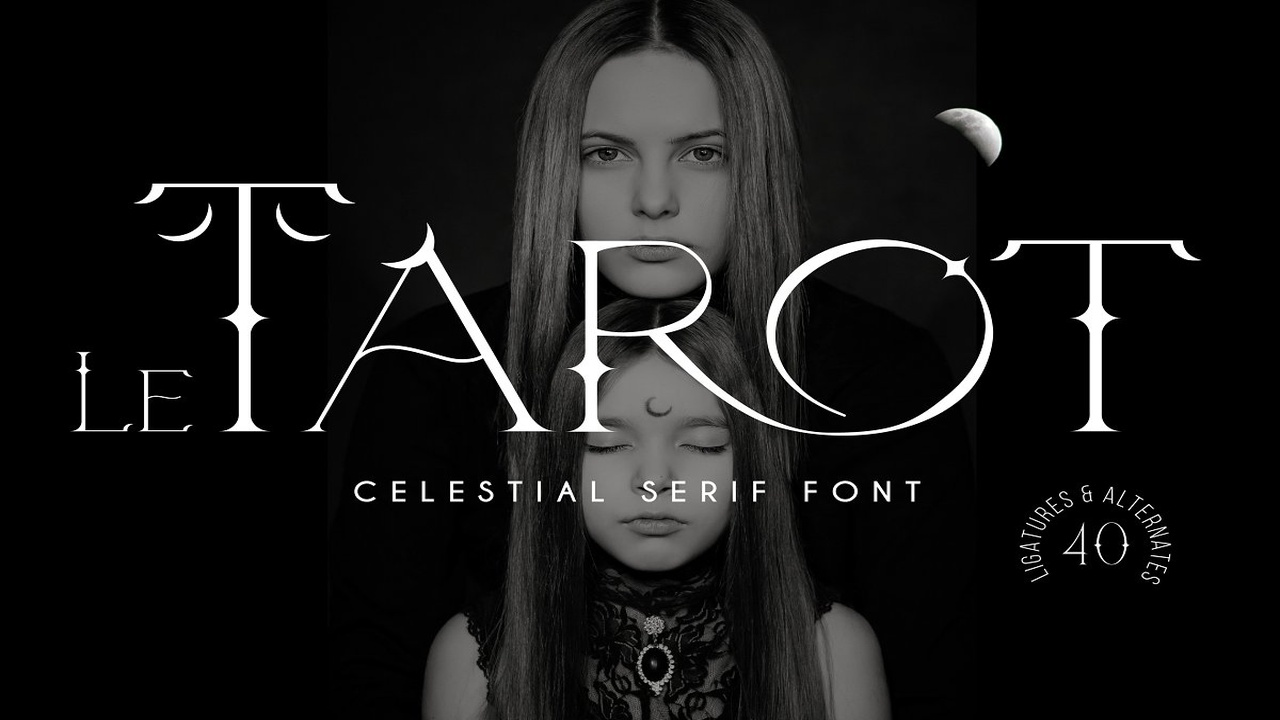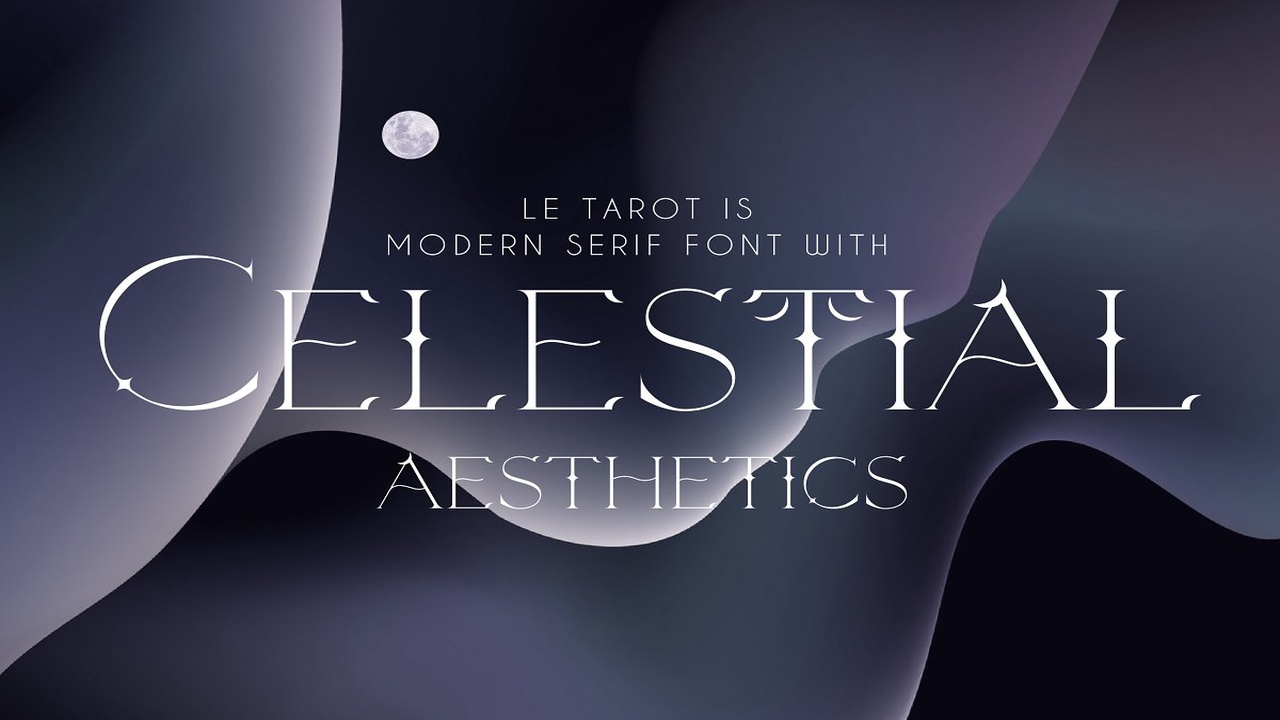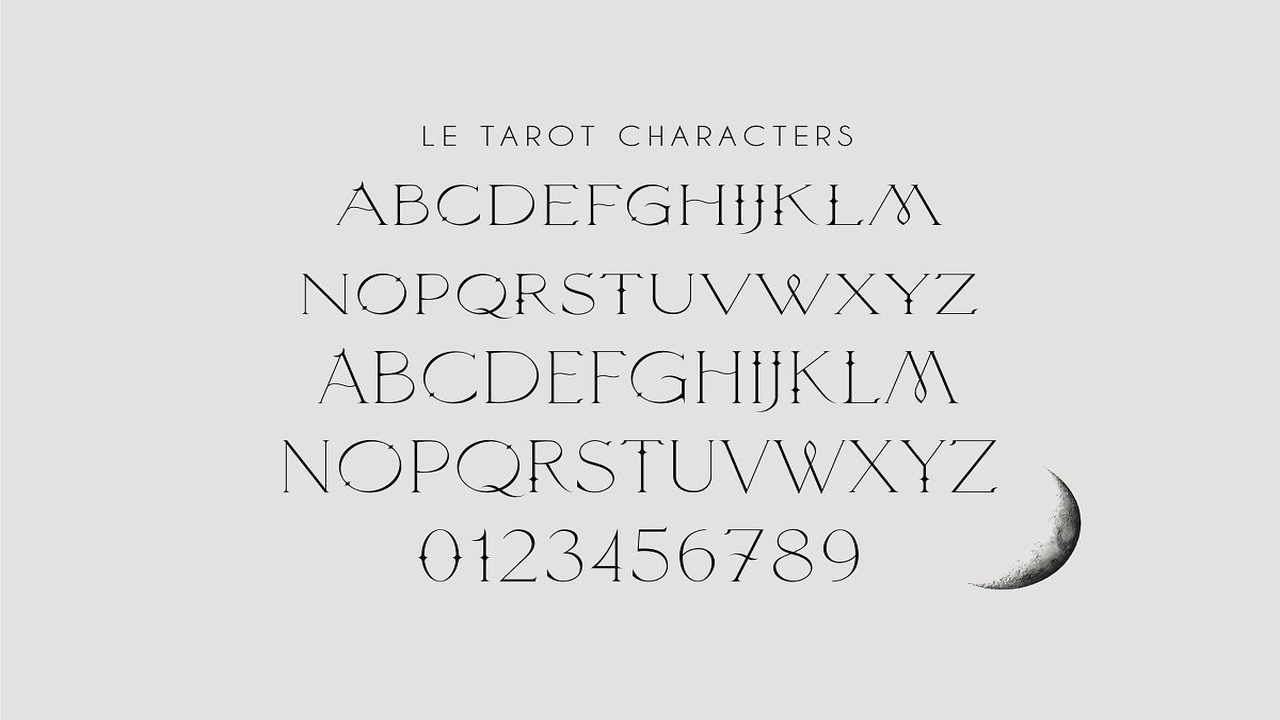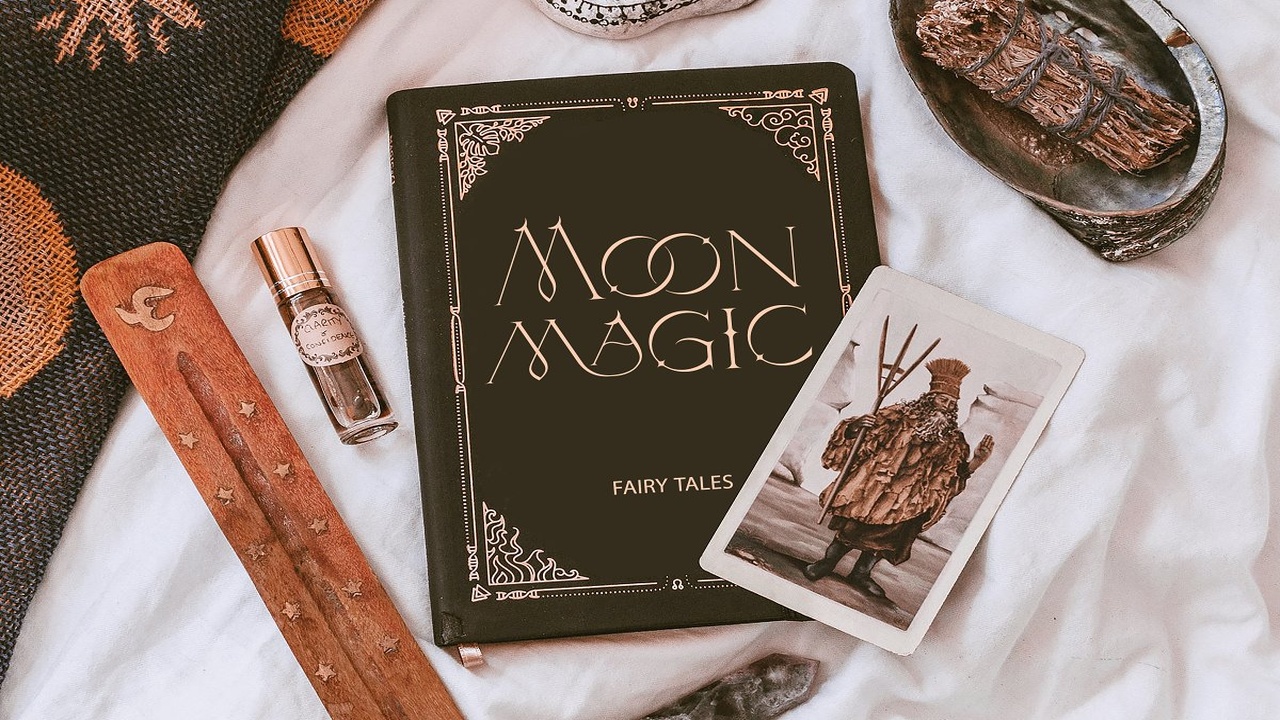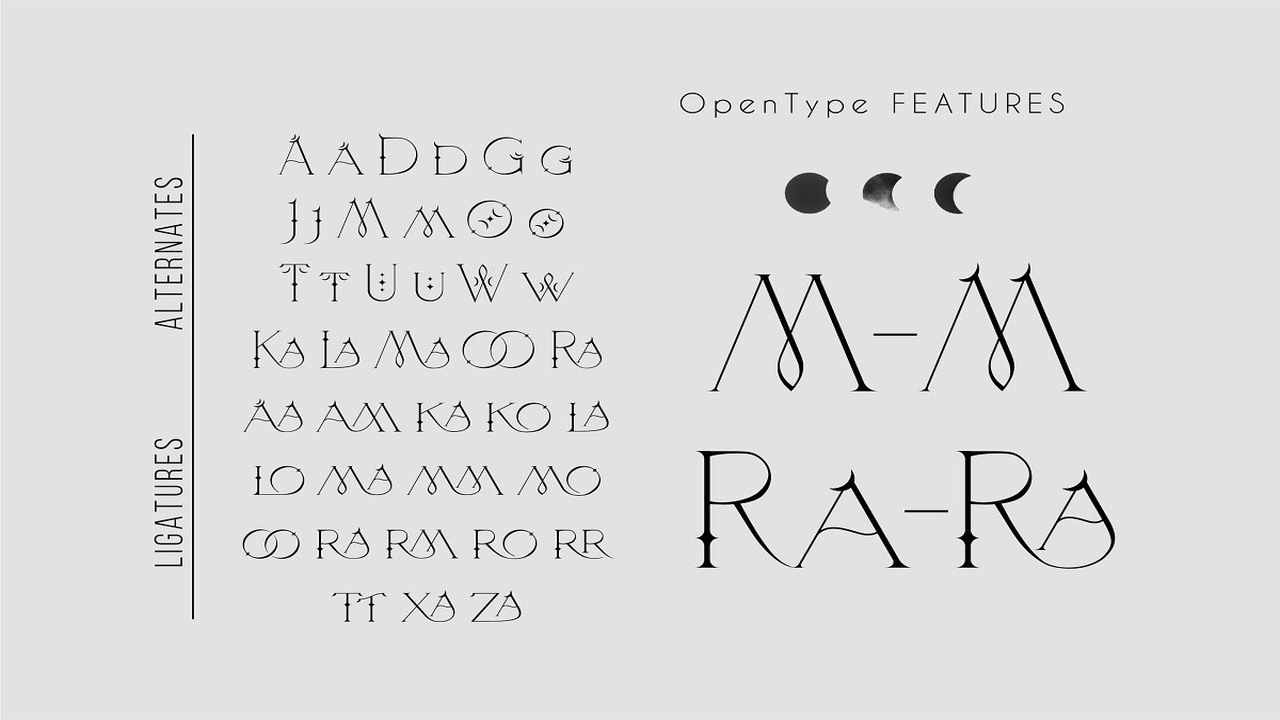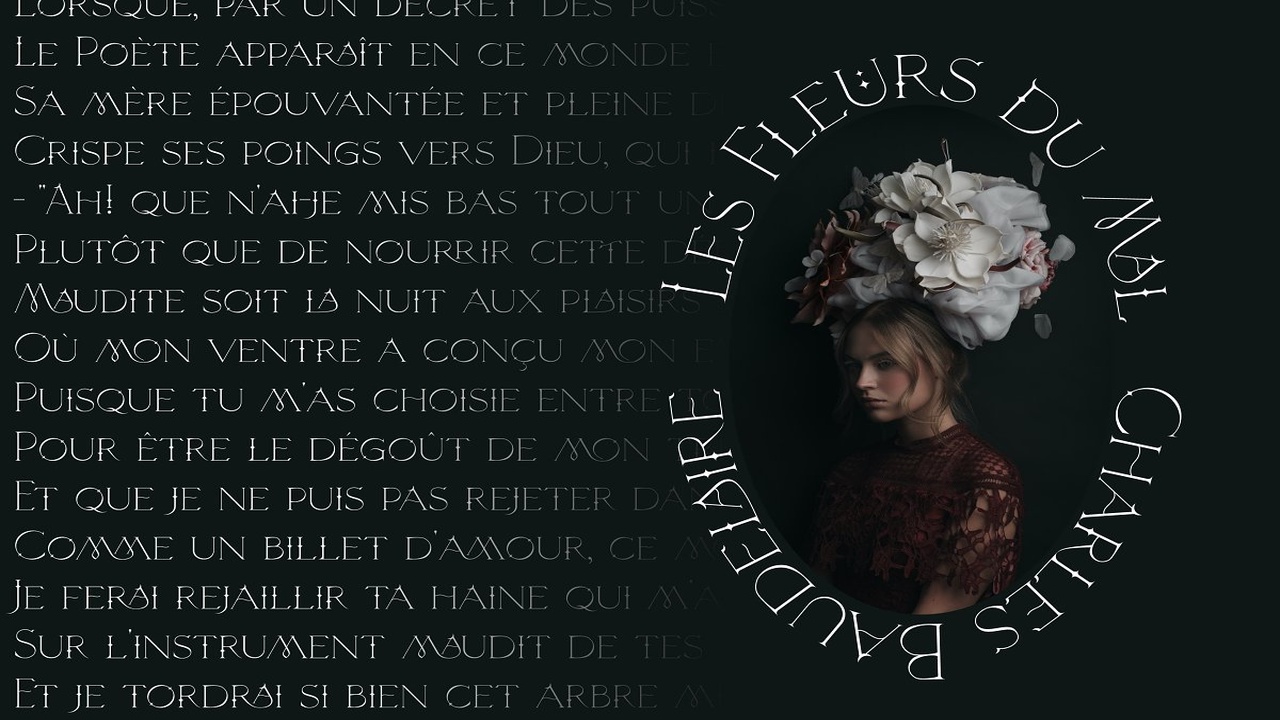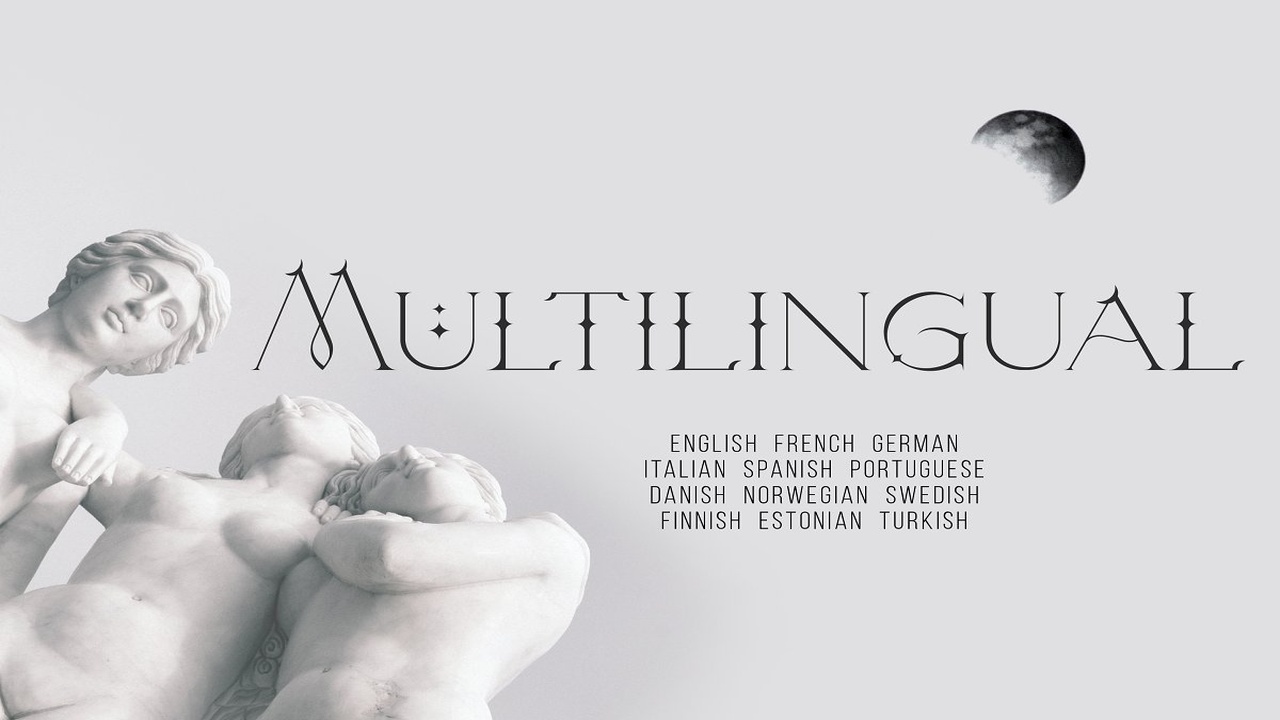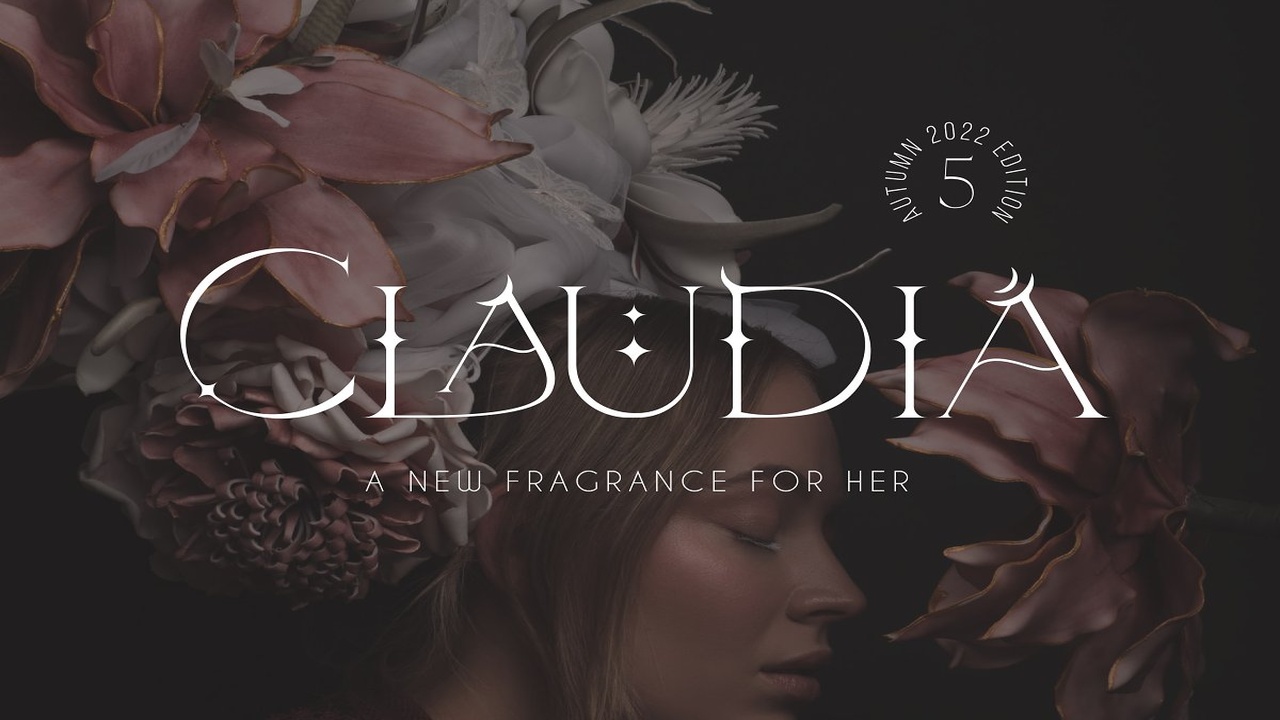
About the Le Tarot Celestial Serif Font
Le Tarot is a modern serif font with celestial motives, The font is created in classic proportions and decorated with the moon and stars, Le tarot includes stylistic alternates and ligatures, The font is suitable for the design on the theme of astrology, mysticism, spirituality, witchcraft, magic, esotericism, WHAT YOU GET:LeTarotdDecorative, otfLeTarotDecorative
ttfLe Tarot has extensive language support, it includes English, French, German, Italian, Spanish, Portuguese, Danish, Norwegian, Swedish, Finnish, Estonian, Turkish, Need to know if your language is supported? Type any words in the text box below and see if all characters you need are there
Le Tarot includes stylistic alternates for symbols: A a D d G g J j M m O o T t U u W w, There are also ligatures: Ka La Ma OO Ra aa am ka ko la lo ma mm mo oo ra rm ro rr tt xa za, Want another celestial font? Please take a look at this product:https://creativemarket